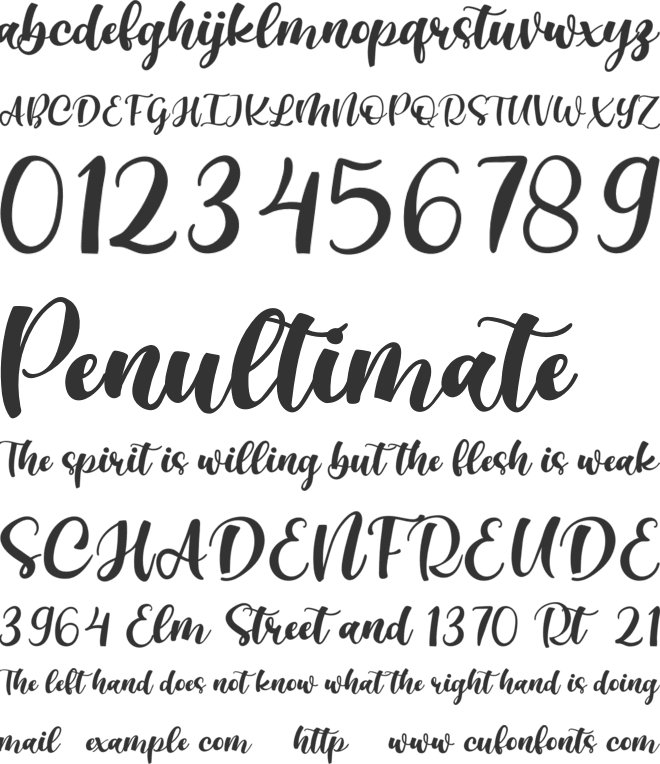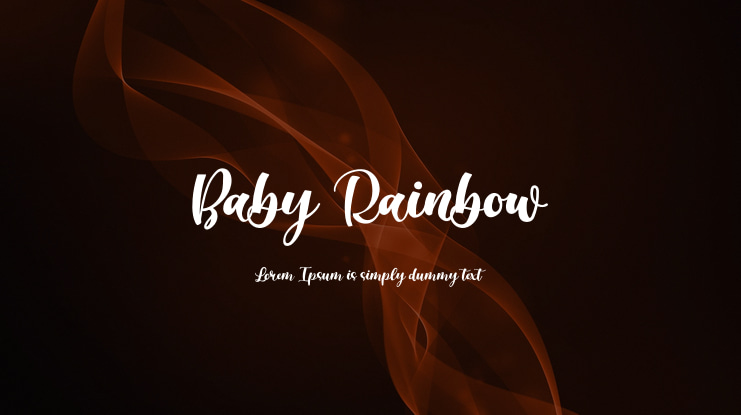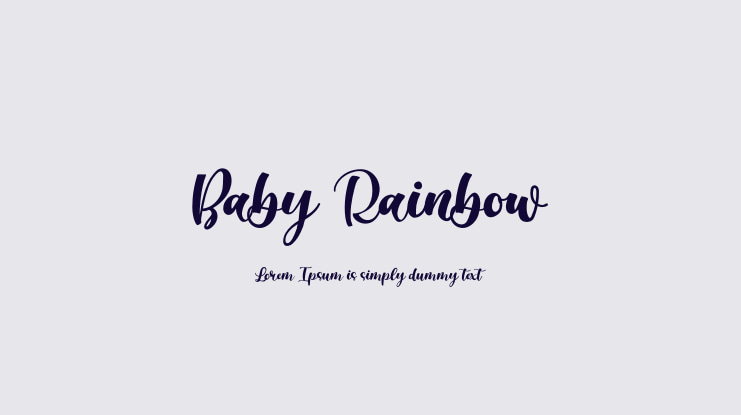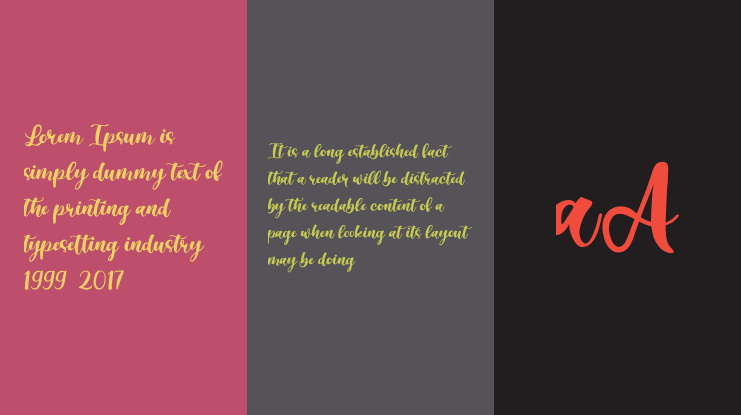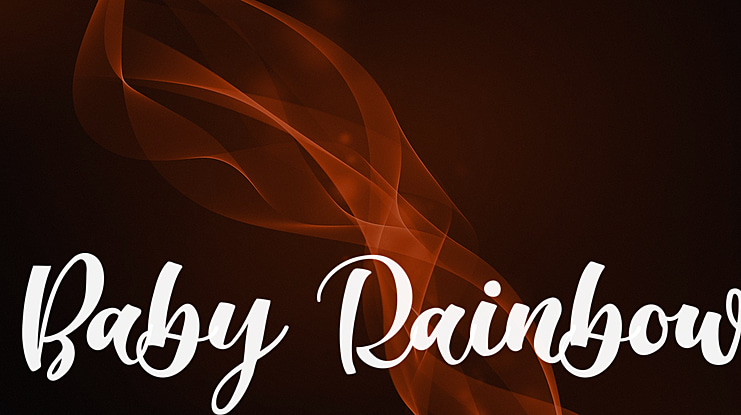
Baby Rainbow Font
Baby Rainbow is a sweet and cursive handwritten font. This gentle font will look gorgeous on a variety of design ideas. It will add a joyful and romantic touch to each of your projects! Baby Rainbow is PUA encoded which means you can access all of the glyphs and swashes with ease!